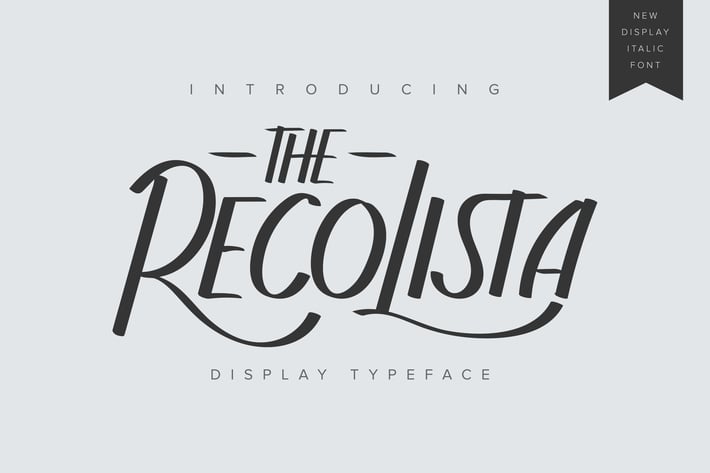
The Recolista | Display Typeface
The Recolista | Display Typeface with a calligraphy style, So beautiful on invitation like greeting cards, branding materials, business cards, quotes, posters, and more!